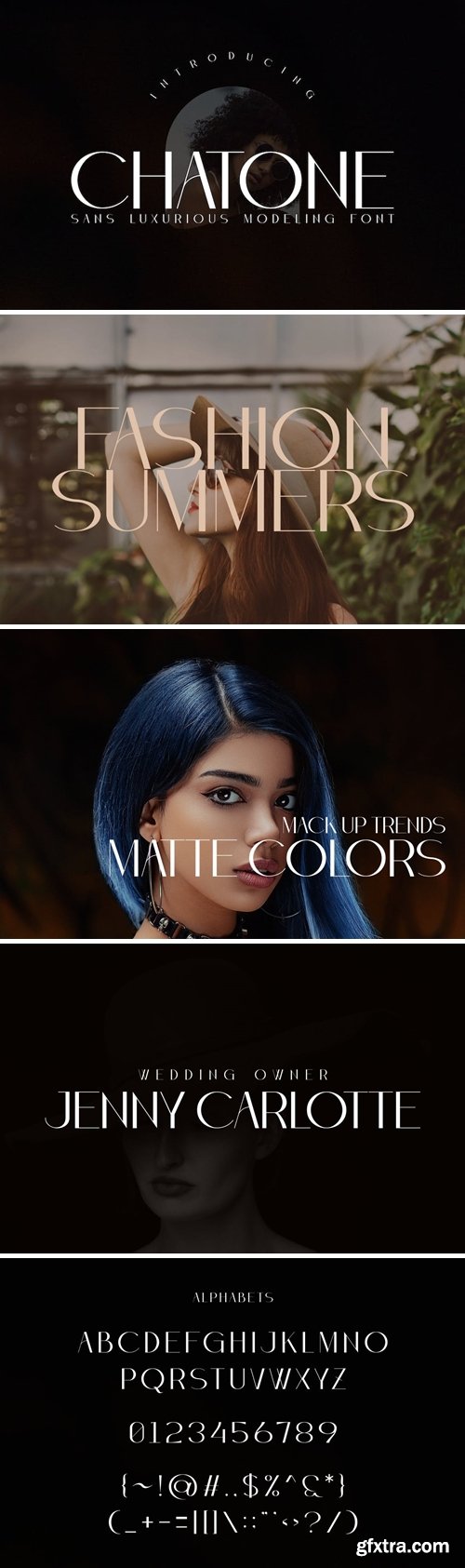
Chatone font
The font type is from the sans-serif family which is easy to read, not tired to look at, and is given a touch of comfort in its glypsh. hairdressing for beauty products is the hallmark of this font.